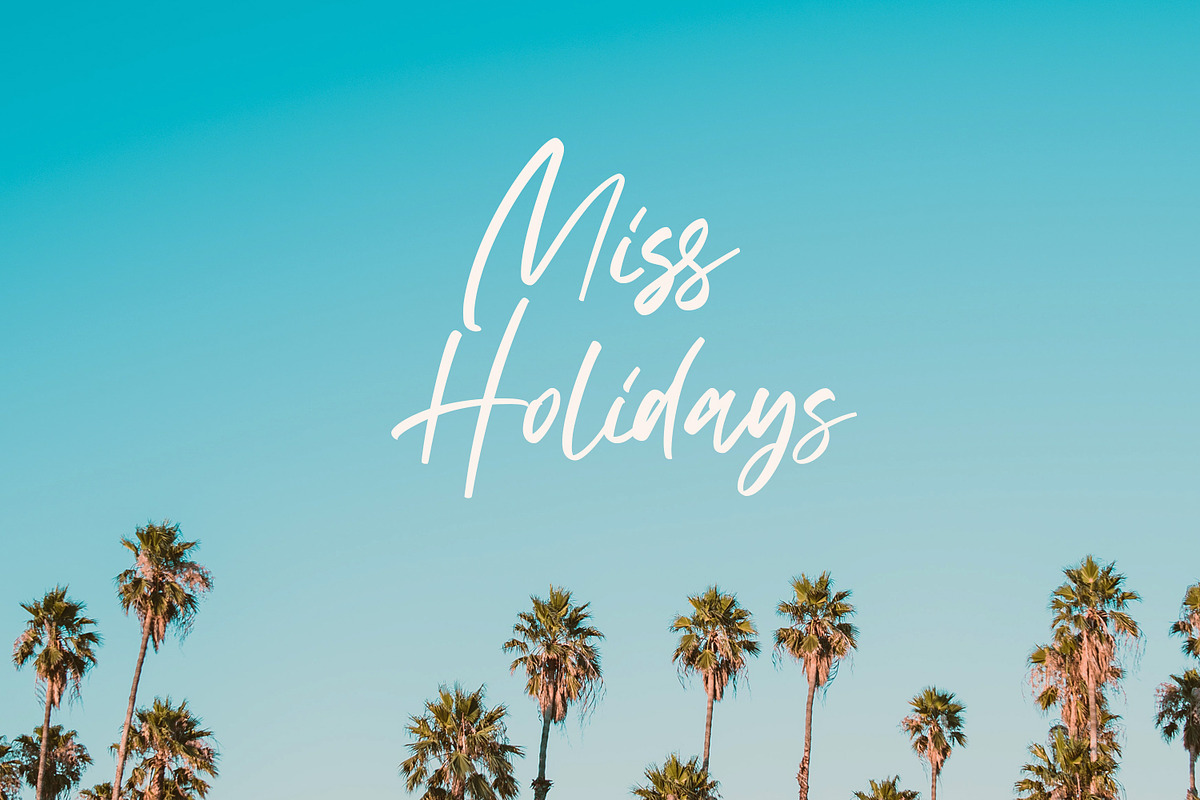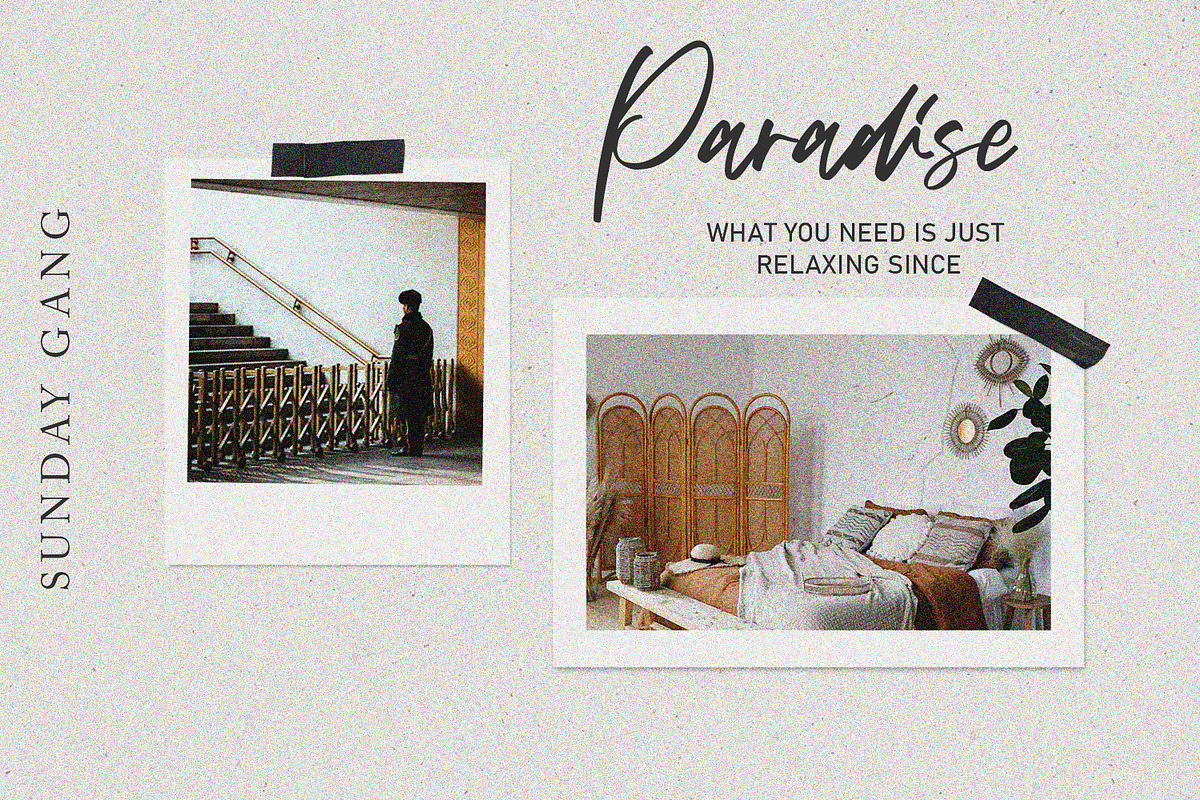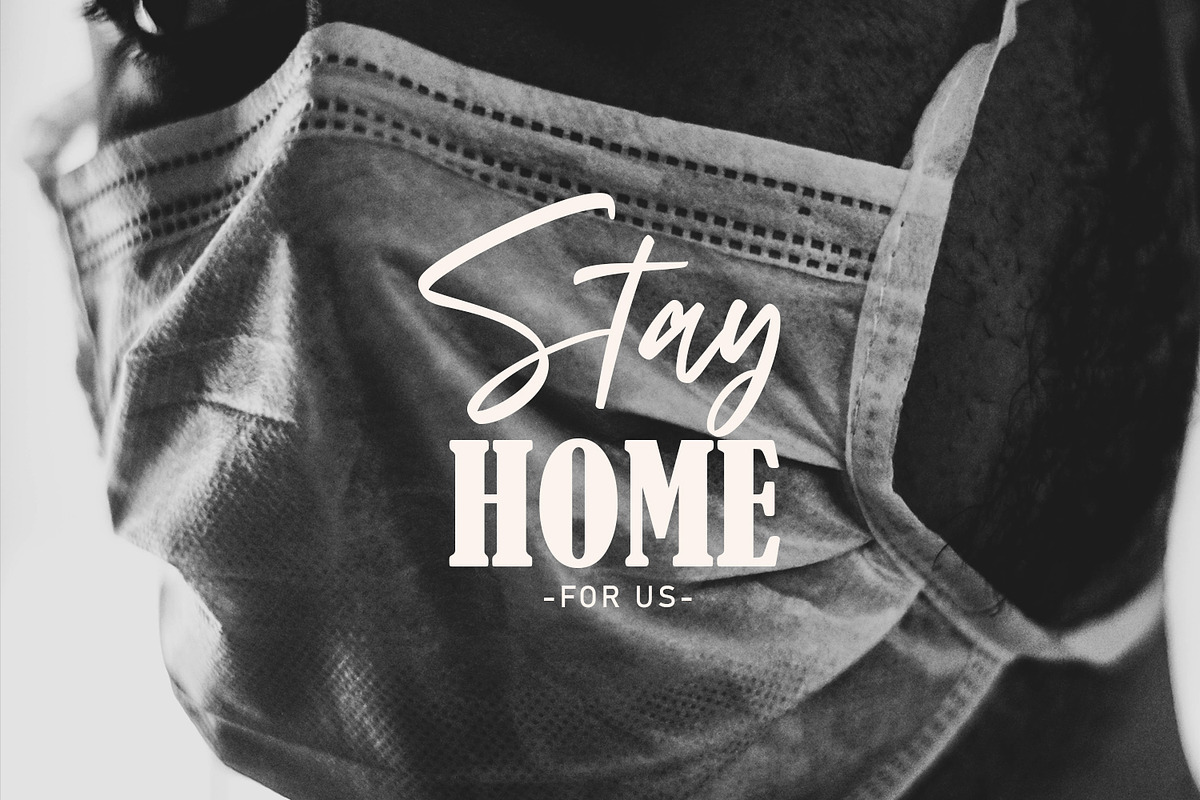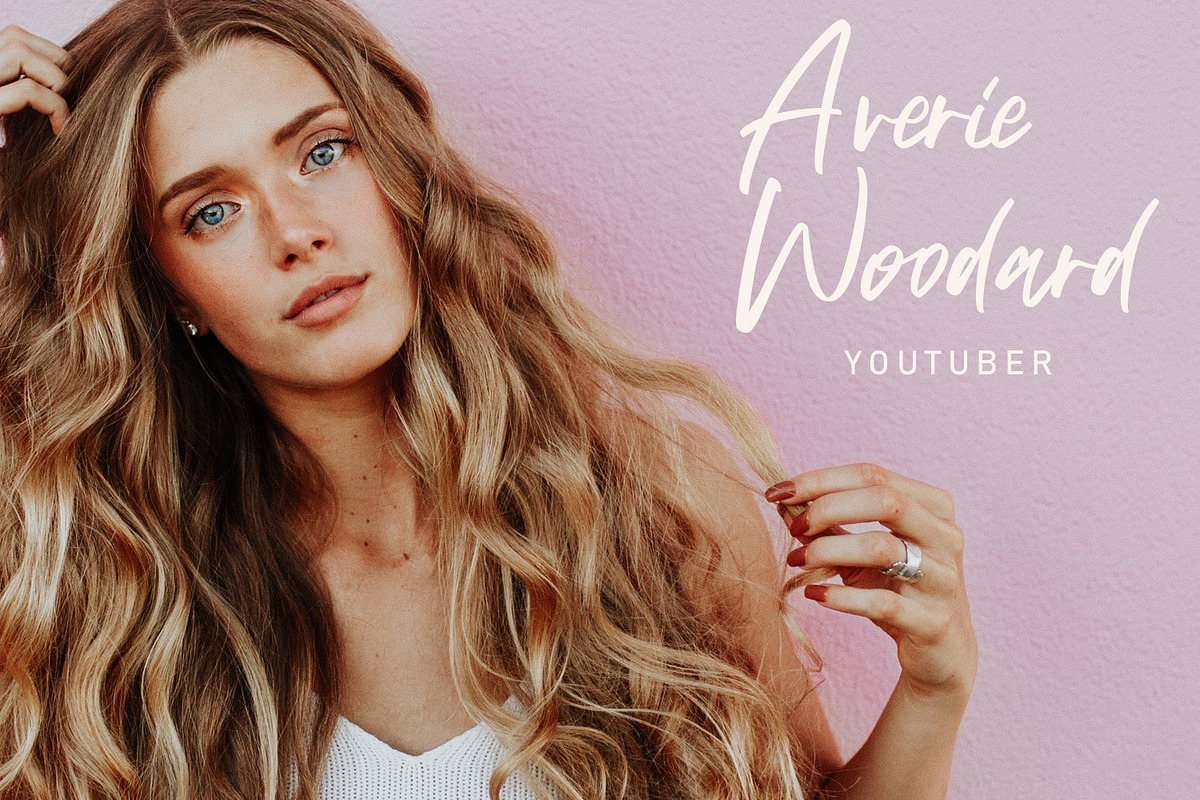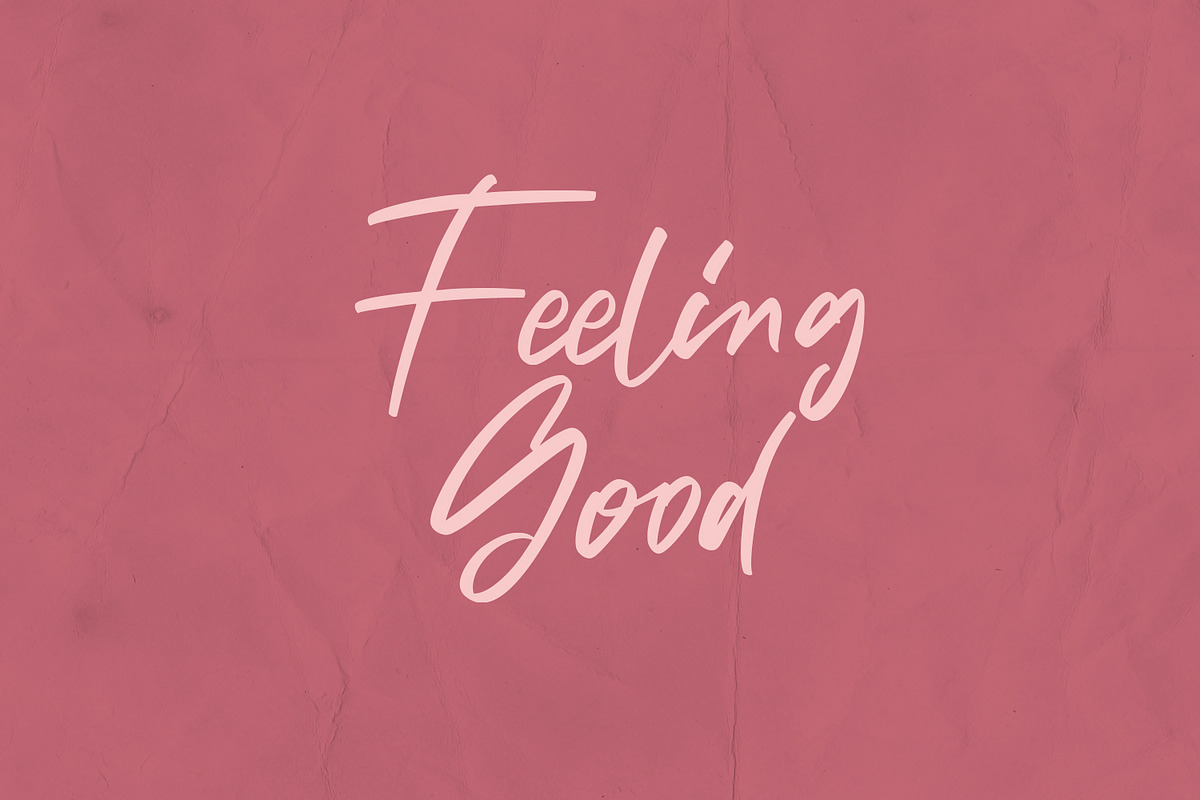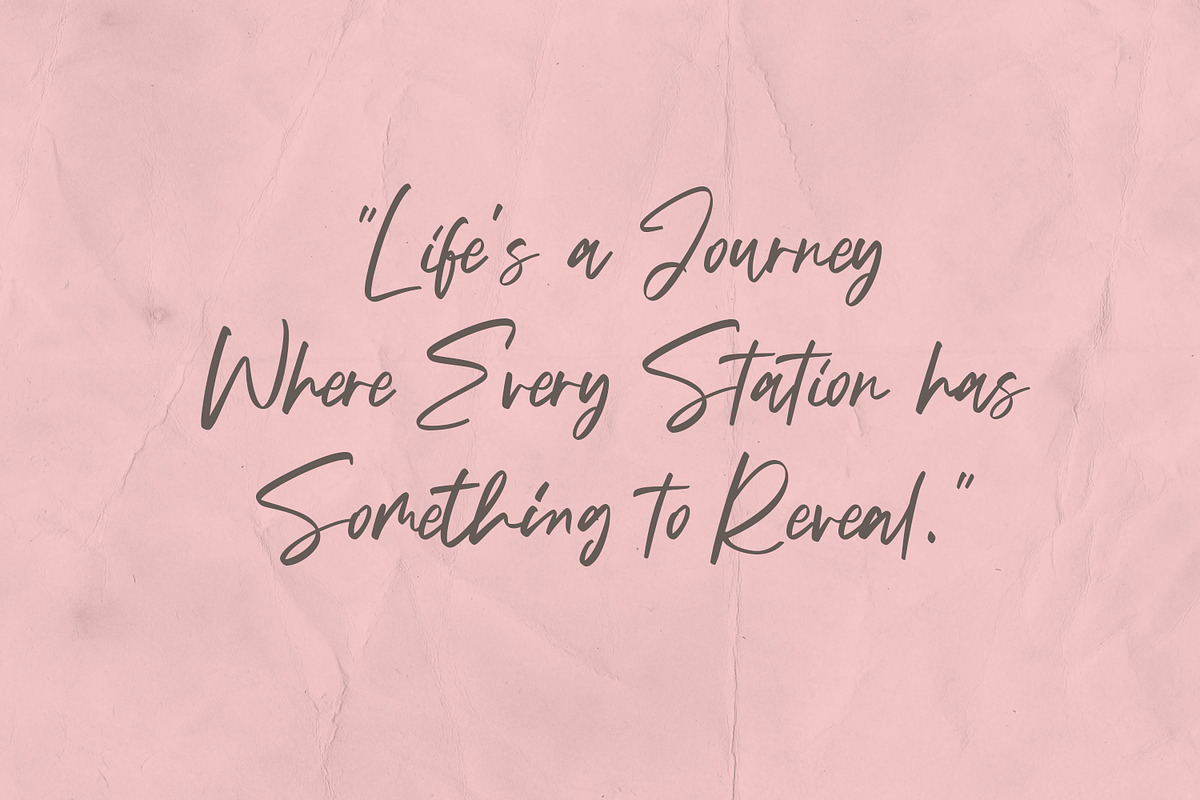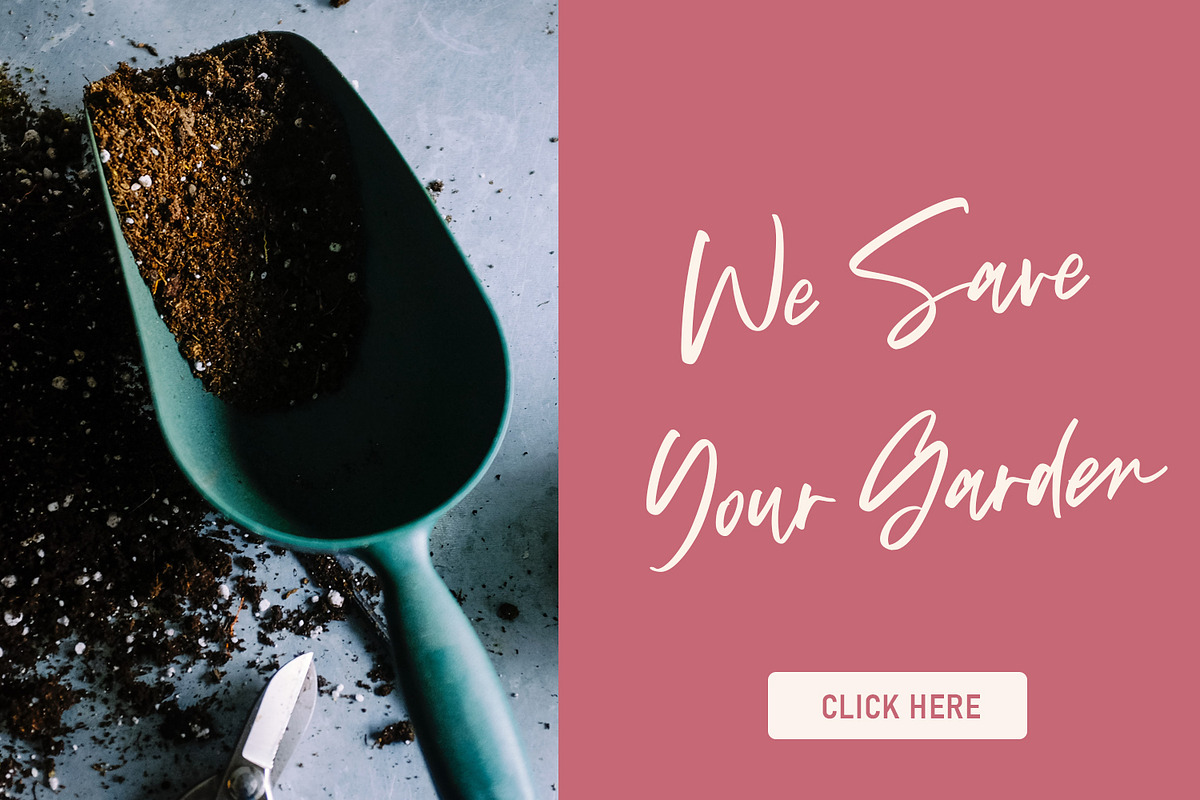
Sunday Gang - Handwritten Font
Introducing Sunday Gang, a handwritten font which is very elegant and modern for you to use and your design interests be it for logos, branding names, posters, podcasts and so on. This is perfect for you all.
Feature 1.Uppercase & Lowercase 2.Numer & Punctuation 3.Multilingual 4.Ligatures There it is!